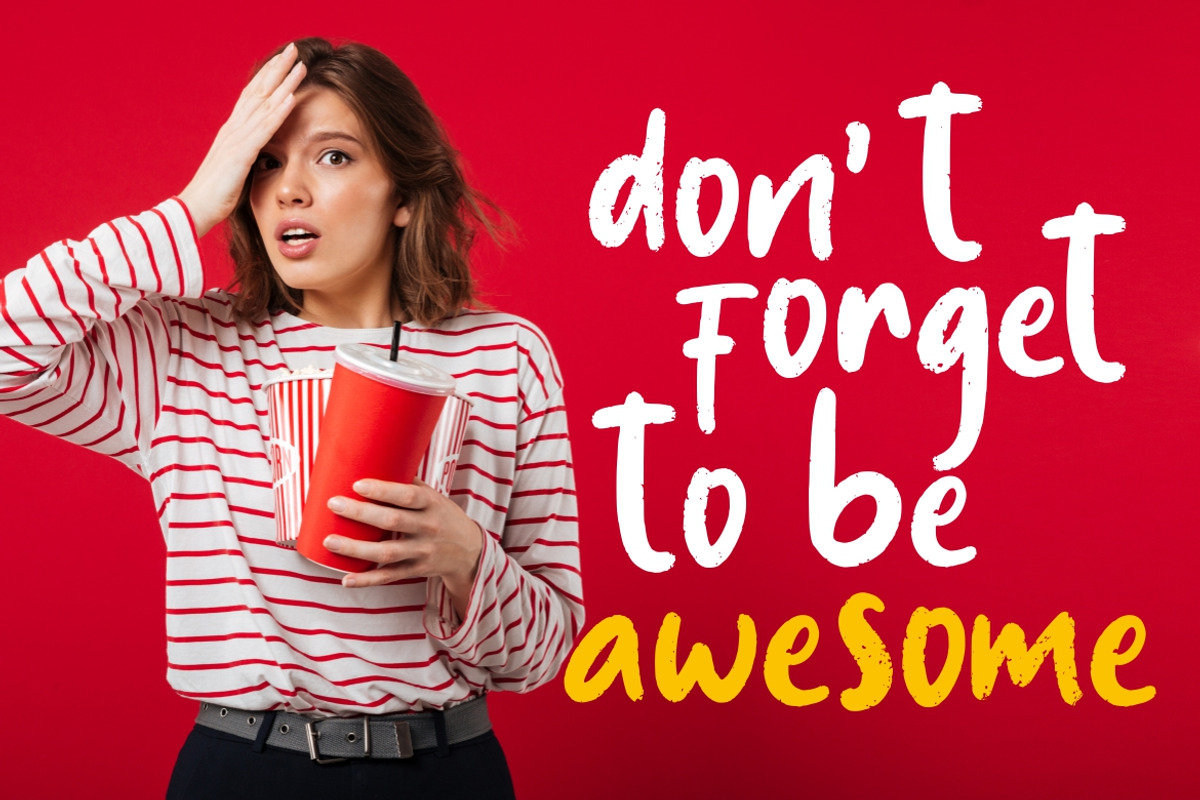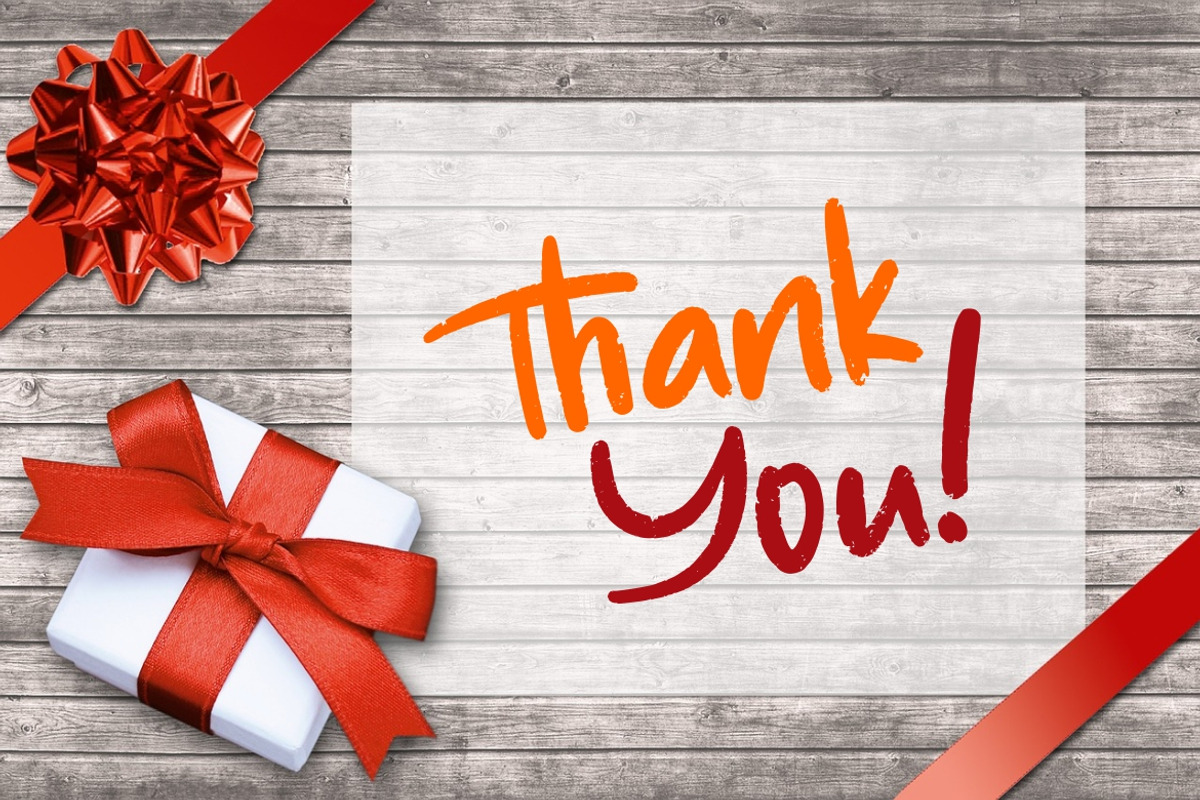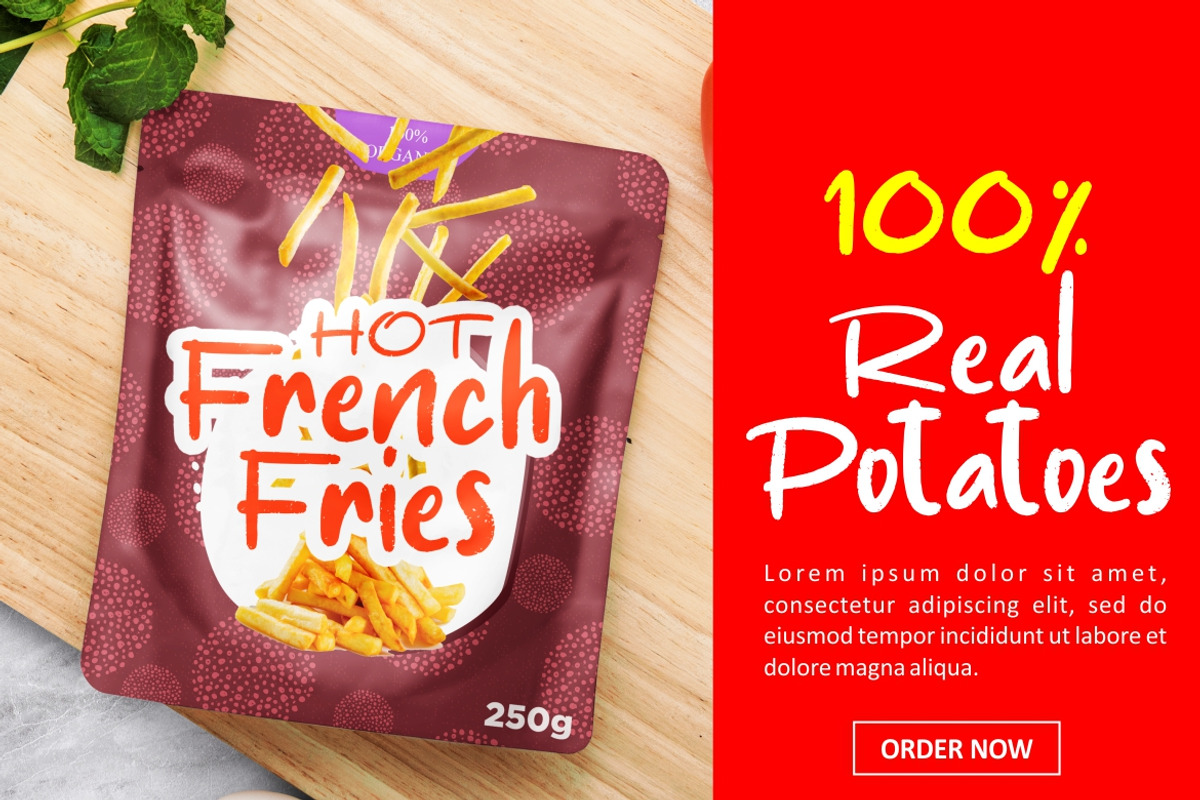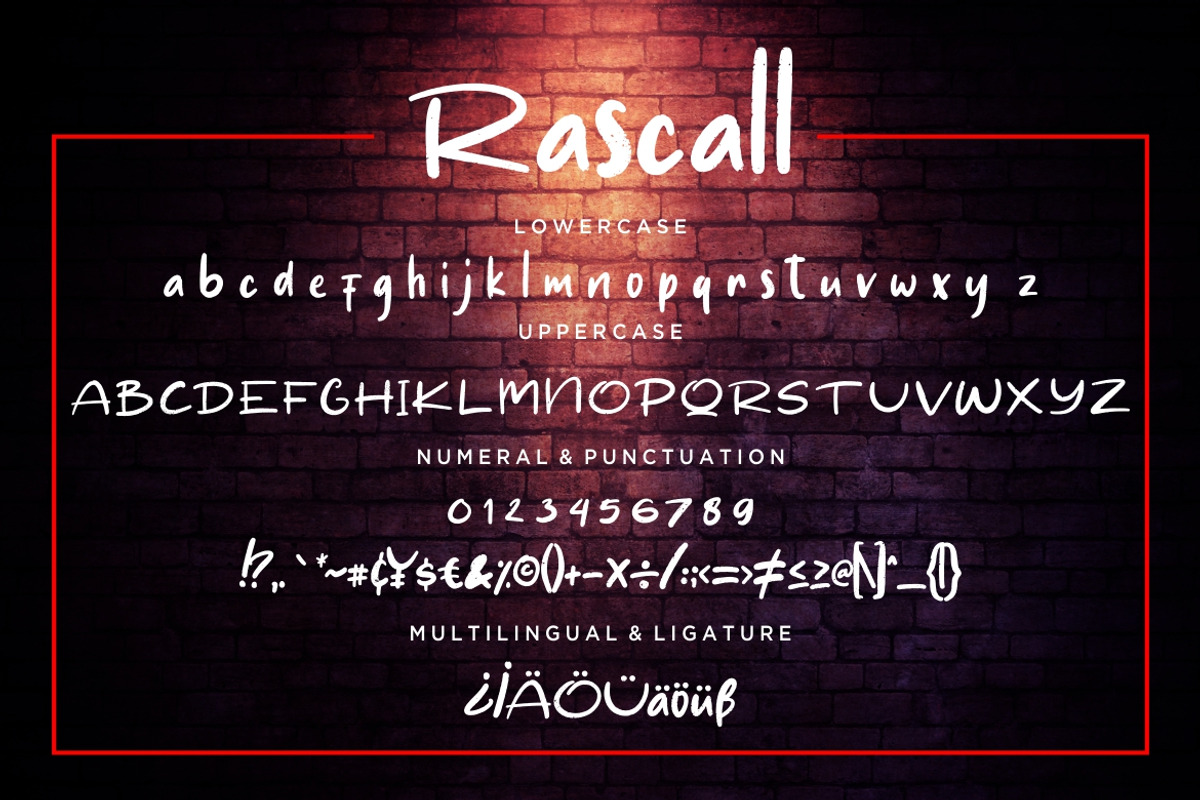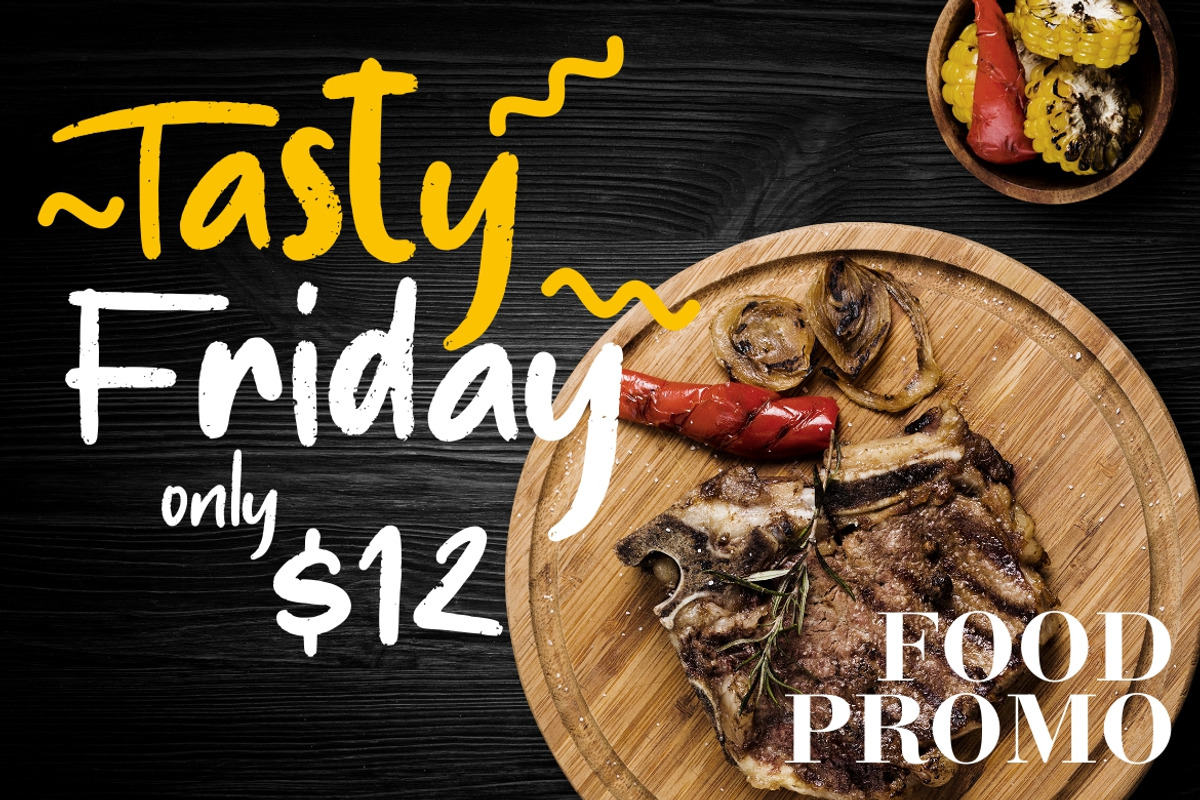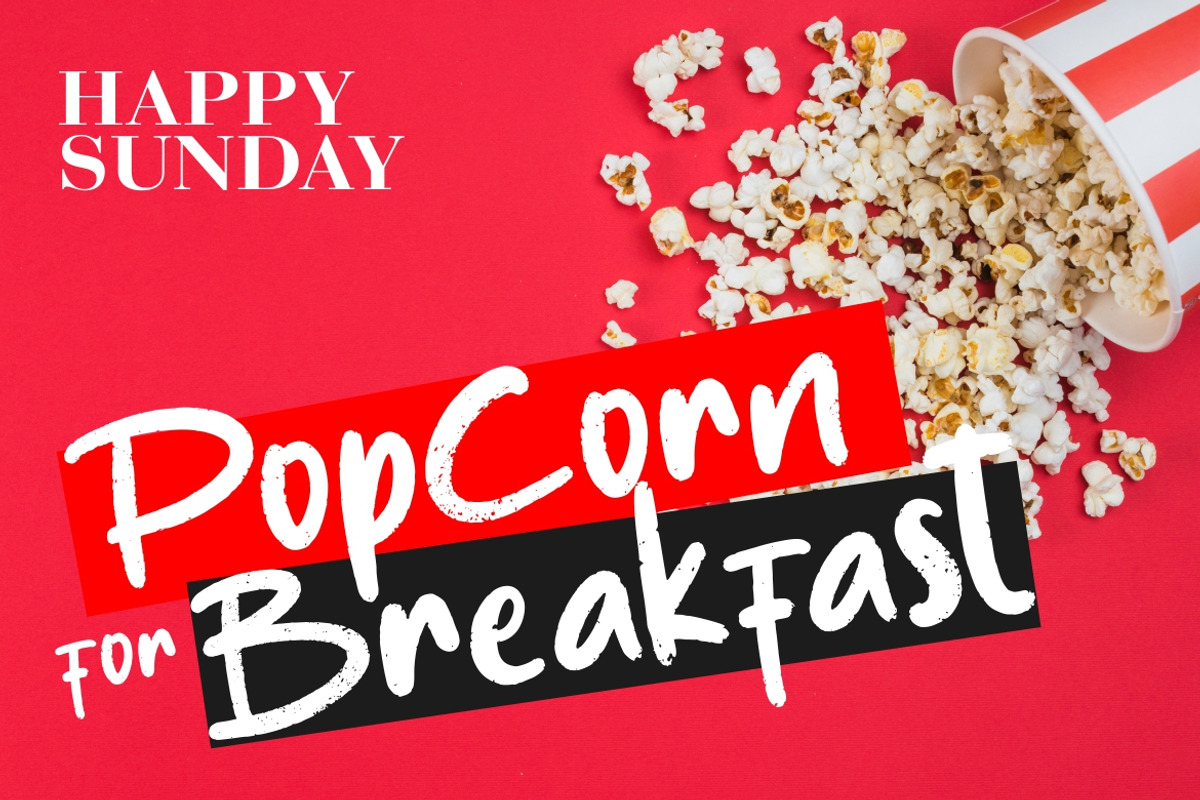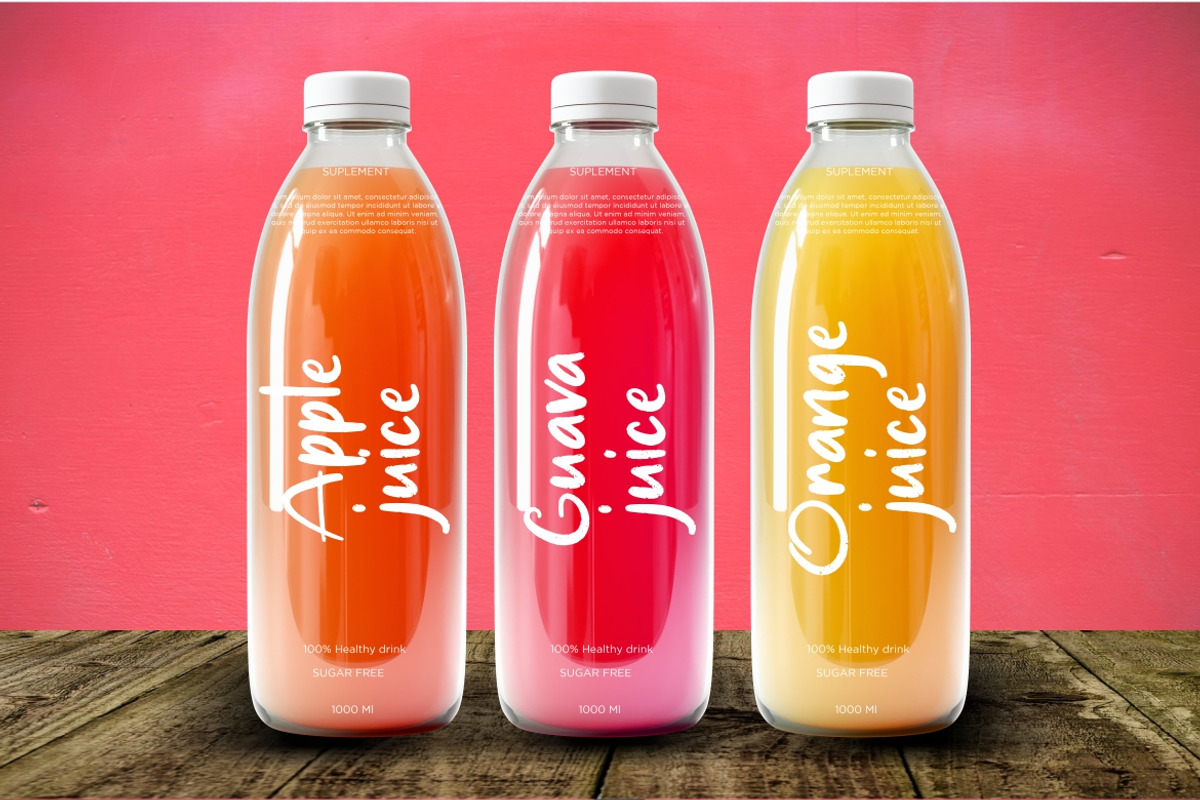
Rascall Brush Advertisement Font
Rascall is hand brush display sans serif font with bold dan natural moves.
Rascall is perfect for branding projects, logo, wedding designs, social media posts, advertisements, product packaging, product designs, label, photography, watermark, invitation, stationery and any projects that need handwriting taste.
Rascall Brush Advertisement Font by Creatype Studio fits naturally into Branding, posters, packaging, typography.